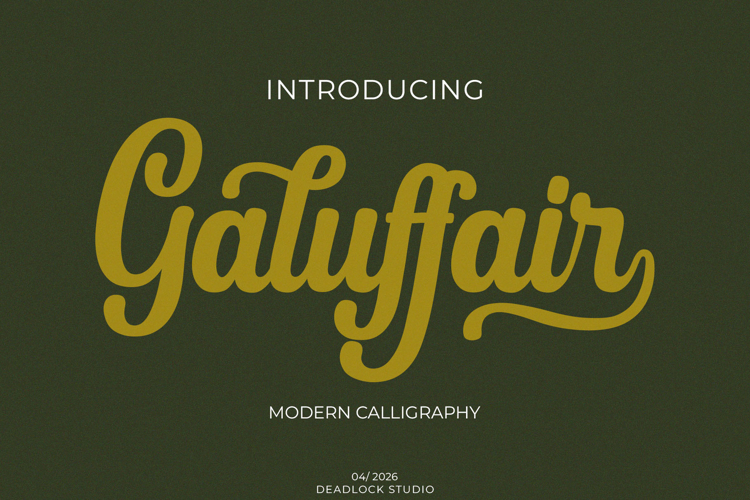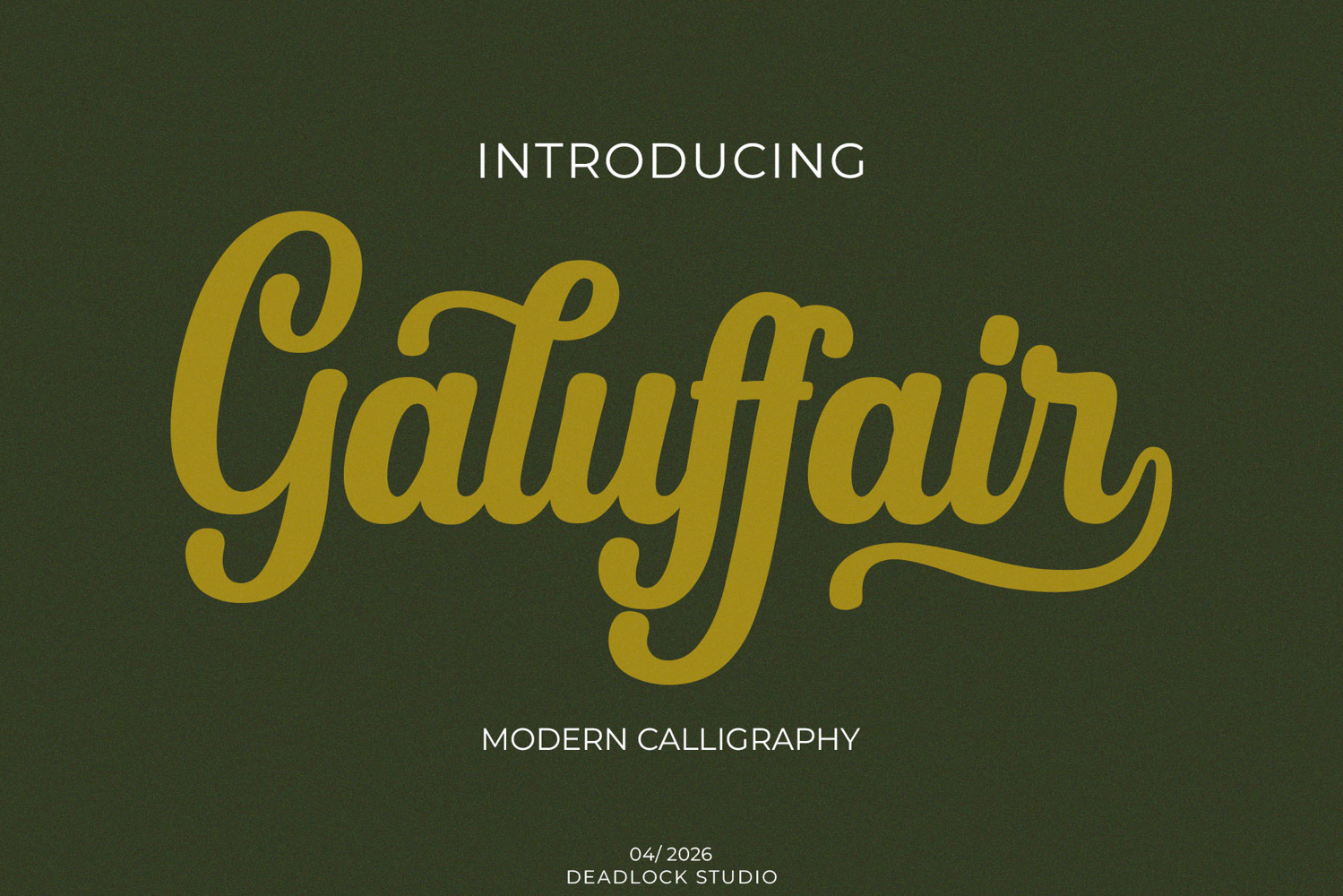
Introducing Galuffair, a captivating modern brush calligraphy font that blends effortless elegance with contemporary energy. Meticulously crafted with 261 characters, Galuffair offers a comprehensive set of glyphs, including uppercase, lowercase, numerals, and versatile punctuation.
Designed for creators who value detail, this font features advanced OpenType capabilities, including seamless Ligatures and two distinct Stylistic Sets (SS01 & SS02) to give your typography a truly custom, hand-painted feel. Whether you’re designing high-end wedding invitations, bold branding, or expressive social media quotes, Galuffair brings a sophisticated yet organic touch to every project.